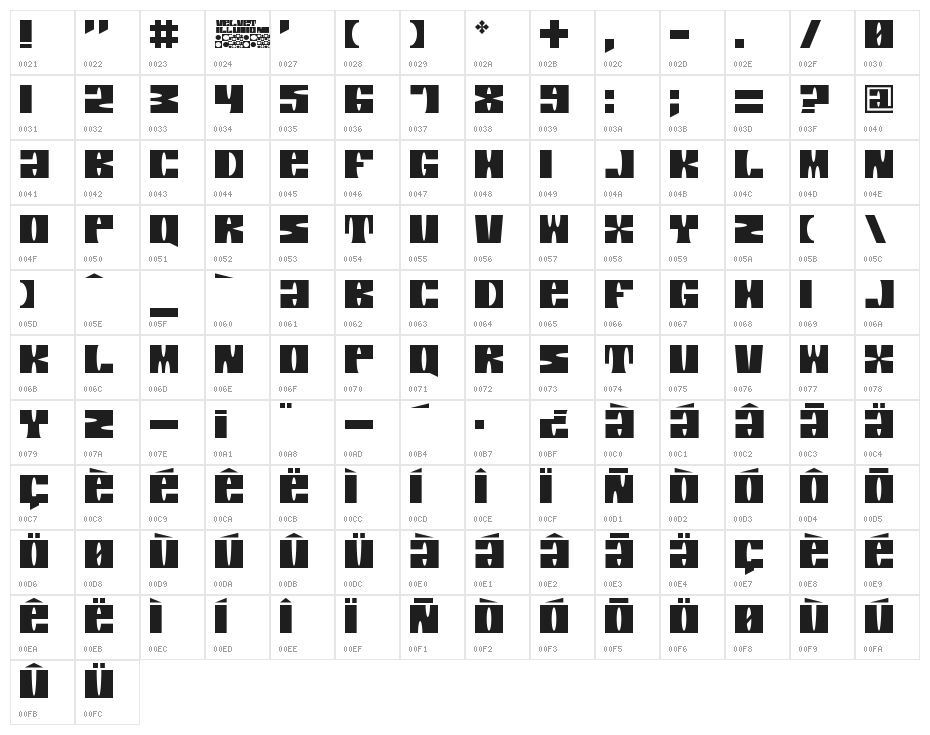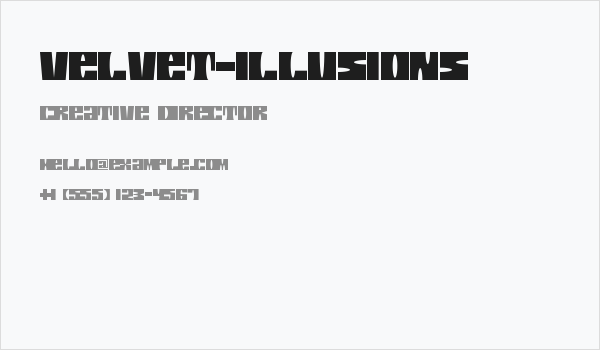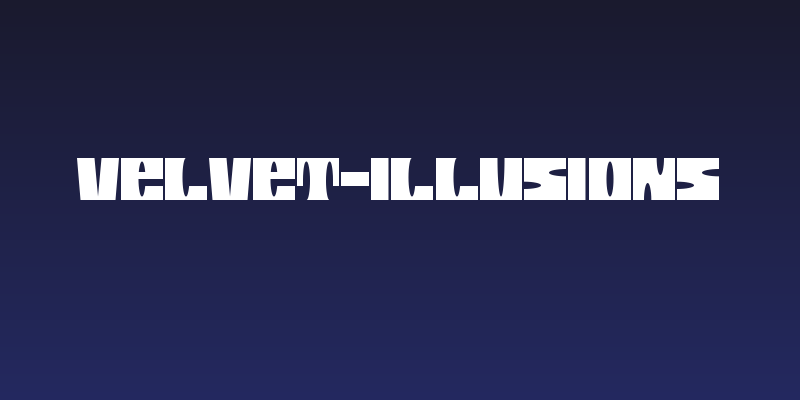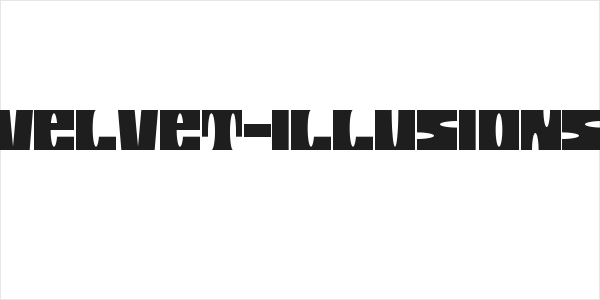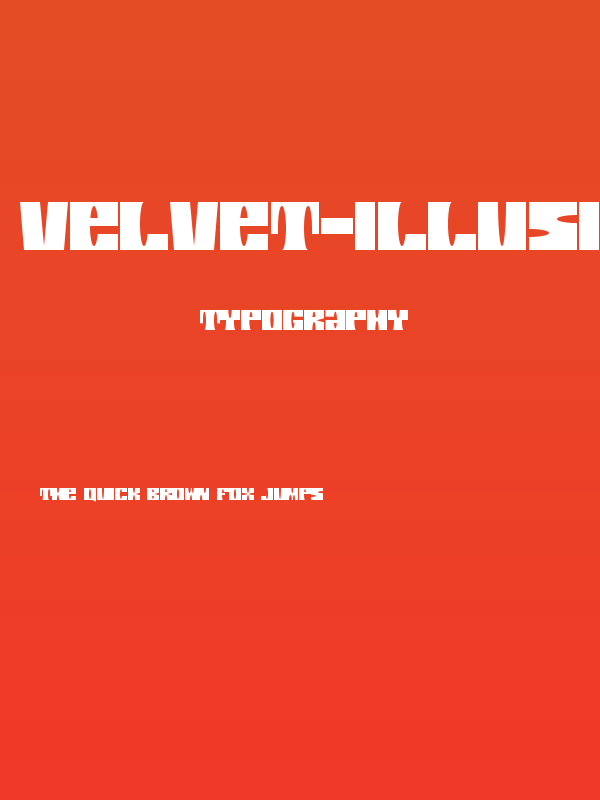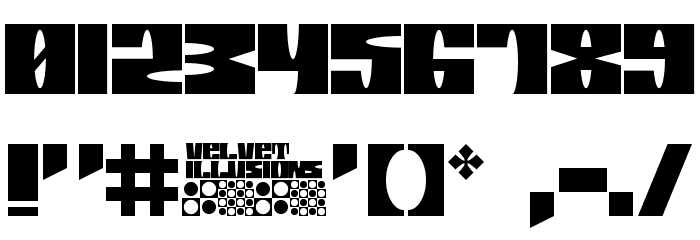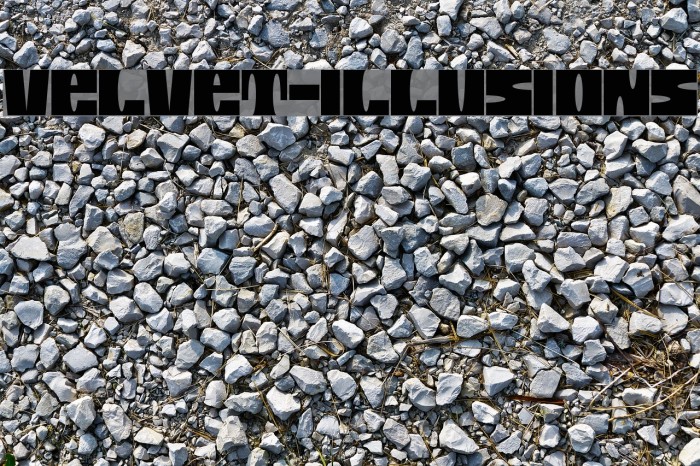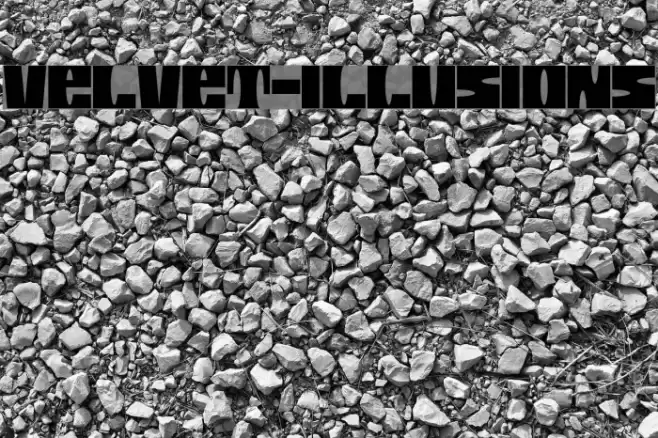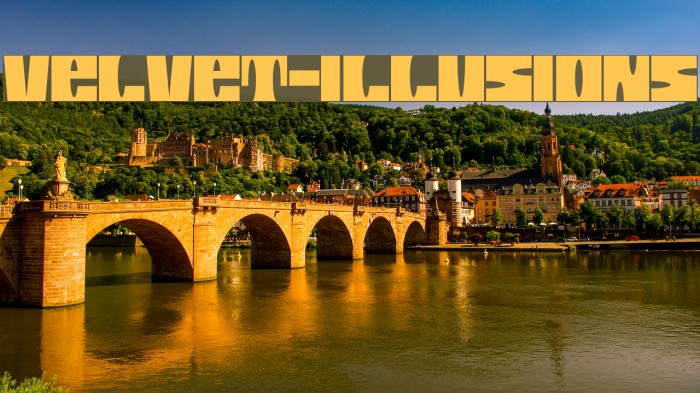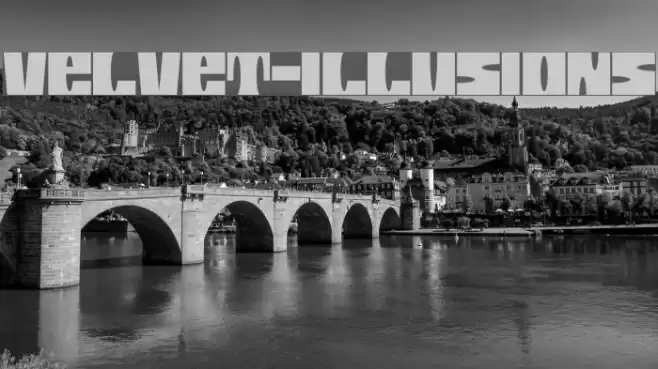
Velvet-Illusions Font
Velvet-Illusions Description
This font features a bold, geometric style with a strong emphasis on angular shapes and sharp edges. The characters are constructed with a blocky, solid appearance, creating a sense of strength and impact. The uppercase letters are particularly striking, with unique cutouts and asymmetrical designs that add a modern, artistic flair. The lowercase letters maintain the same boldness, ensuring consistency across the typeface. Numbers and special characters are designed with the same geometric precision, making them stand out. The overall design is reminiscent of retro-futuristic aesthetics, making it suitable for projects that require a distinctive and eye-catching typeface.
| Overall Style | Modern, Retro-Futuristic |
| Proposed Projects | Ideal for posters, album covers, branding, and any project needing a bold, artistic touch. |